How Serif Fonts Define Luxury Branding
Serif fonts have long been the visual language of prestige. From fashion houses to premium skincare brands, these typefaces signal elegance, trust, and timeless sophistication. When used strategically, serif fonts can instantly elevate a brand’s identity and create an aura of exclusivity.
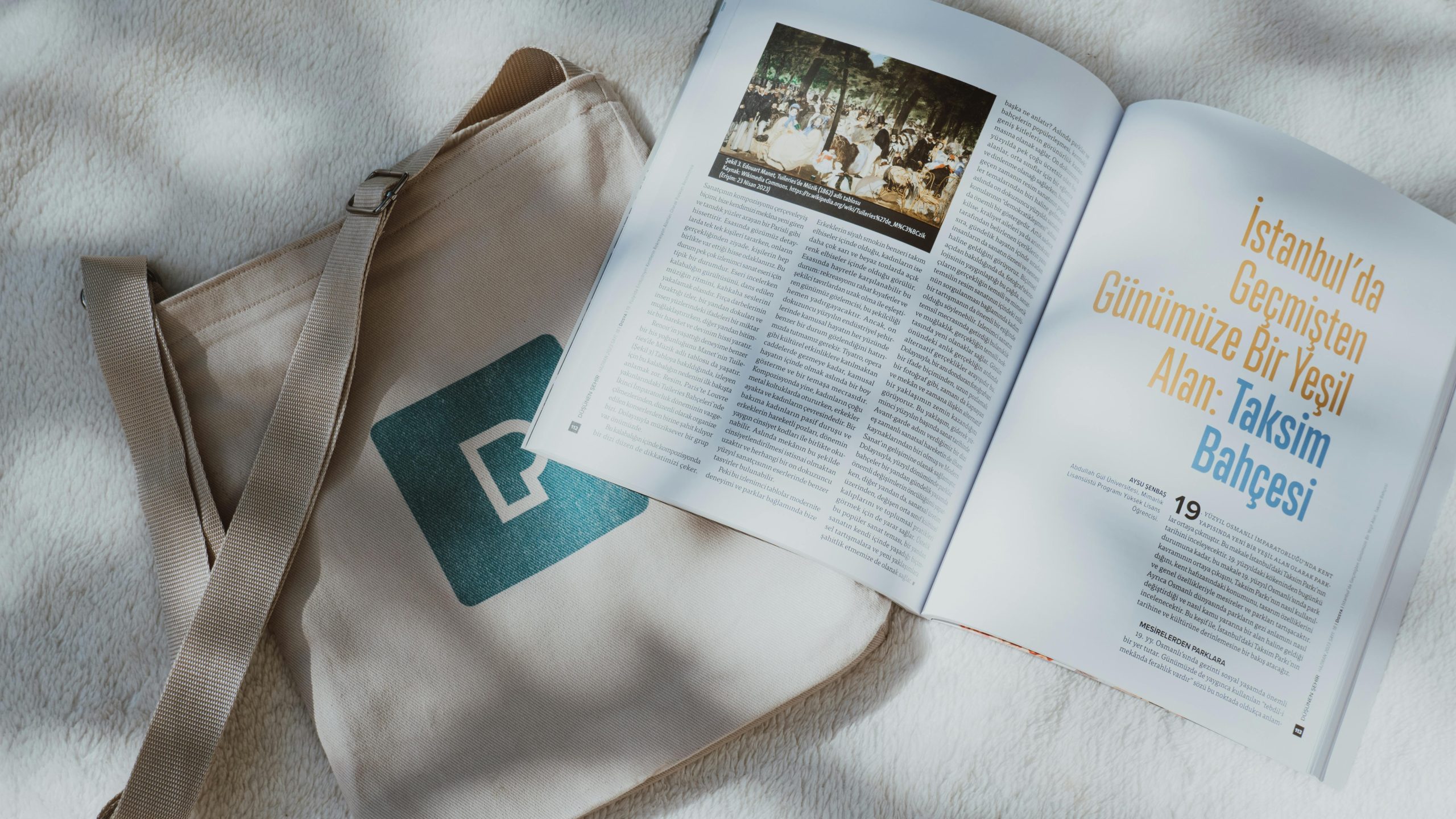
How Serif Fonts Define Luxury Branding
Why Luxury Brands Prefer Serif Fonts
Serif fonts carry psychological cues that consumers naturally associate with premium quality:
• Tradition
• Heritage
• Refinement
• High-end craftsmanship
This is why brands like Vogue, Tiffany & Co., and Dior rely on serif-based typography.
The Psychology Behind Serifs
Serifs—the tiny strokes at the edges of letters—add visual stability.
This creates feelings of:
• Trust
• Authority
• Professionalism
For luxury brands, this sense of stability translates to higher perceived value.
How Serifs Add Elegance to Brand Identity
Serif fonts naturally create a polished aesthetic through:
• Contrast between thick and thin strokes
• Graceful curves
• Balanced proportions
• Timeless visual rhythm
These details work together to communicate premium positioning.
Where to Use Serif Fonts for Maximum Impact
Luxury brands typically apply serif fonts to:
• Hero headlines
• Brand logos
• Product packaging
• Magazine-like layouts
• High-end website designs
Placed correctly, they immediately elevate the brand tone.
Best Serif Fonts for Premium Visuals
To achieve luxury-level branding, typeface selection is key.
• Branty — modern chic serif with elegant strokes
• Harbourger (serif variant style) — refined, geometric, premium structure
• Neona Delima — bold serif energy for upscale editorial looks